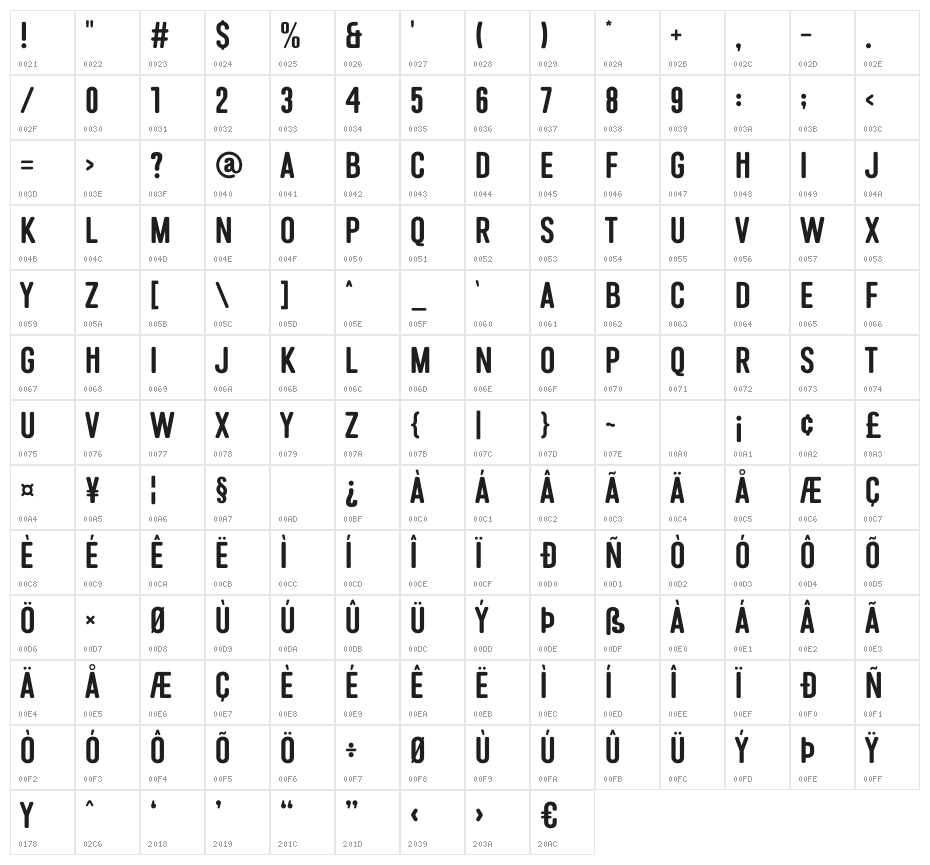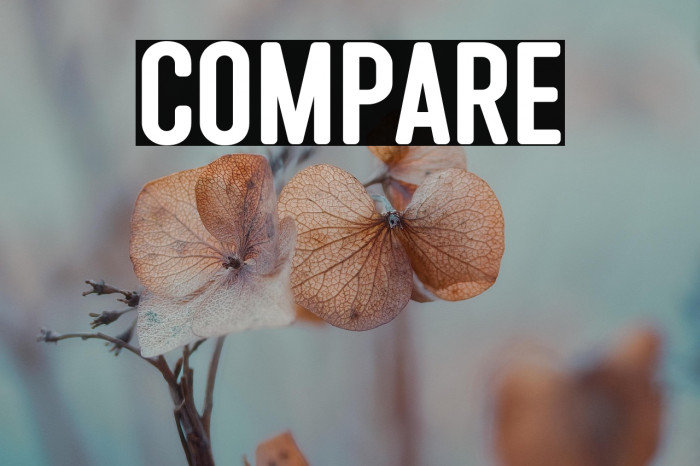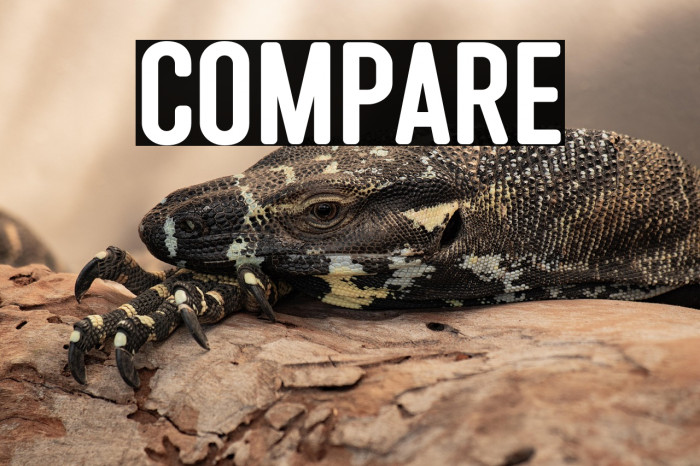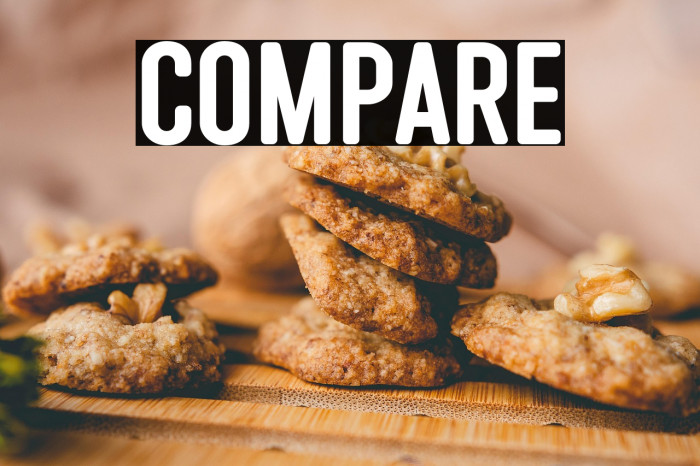
Compare Font
Compare Description
This font features bold, rounded characters with a modern and clean appearance. The uppercase and lowercase letters maintain a consistent width, contributing to a uniform look. The numerals are equally bold, ensuring readability and balance. Special characters are well-integrated, matching the overall style. The rounded edges give a friendly and approachable feel, making it suitable for various design contexts. The font's structure is straightforward, with no unnecessary embellishments, emphasizing clarity and simplicity.